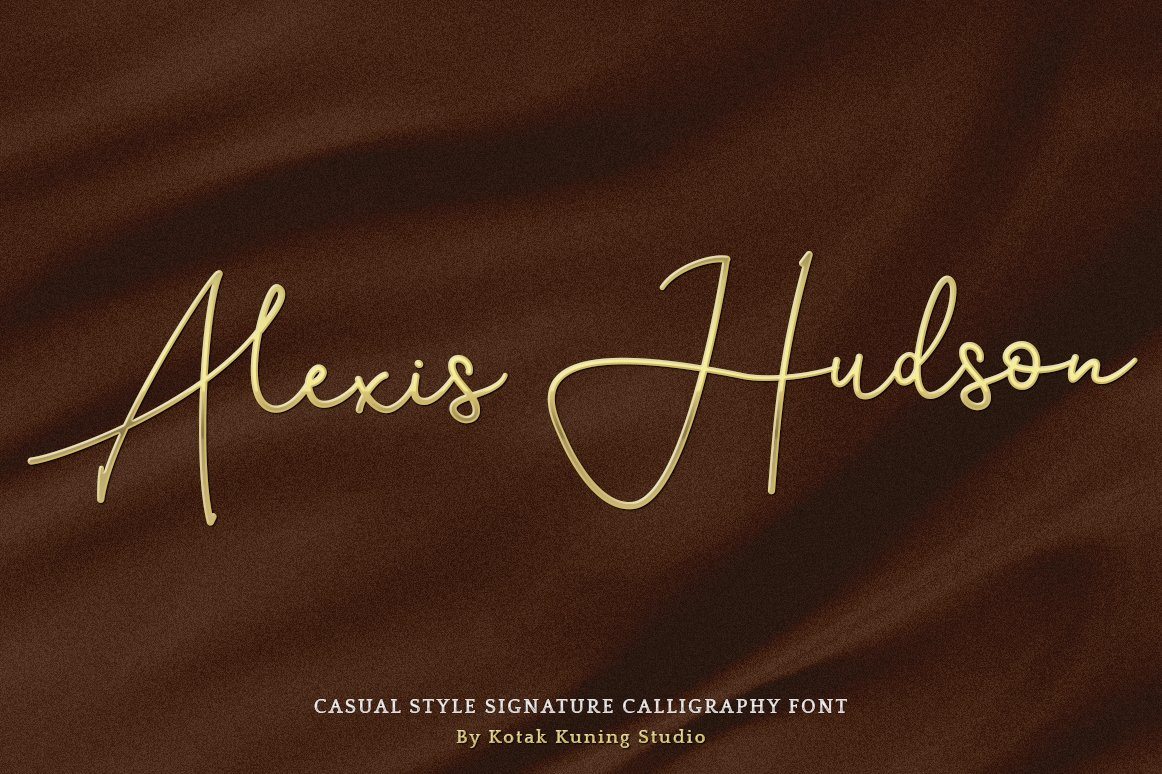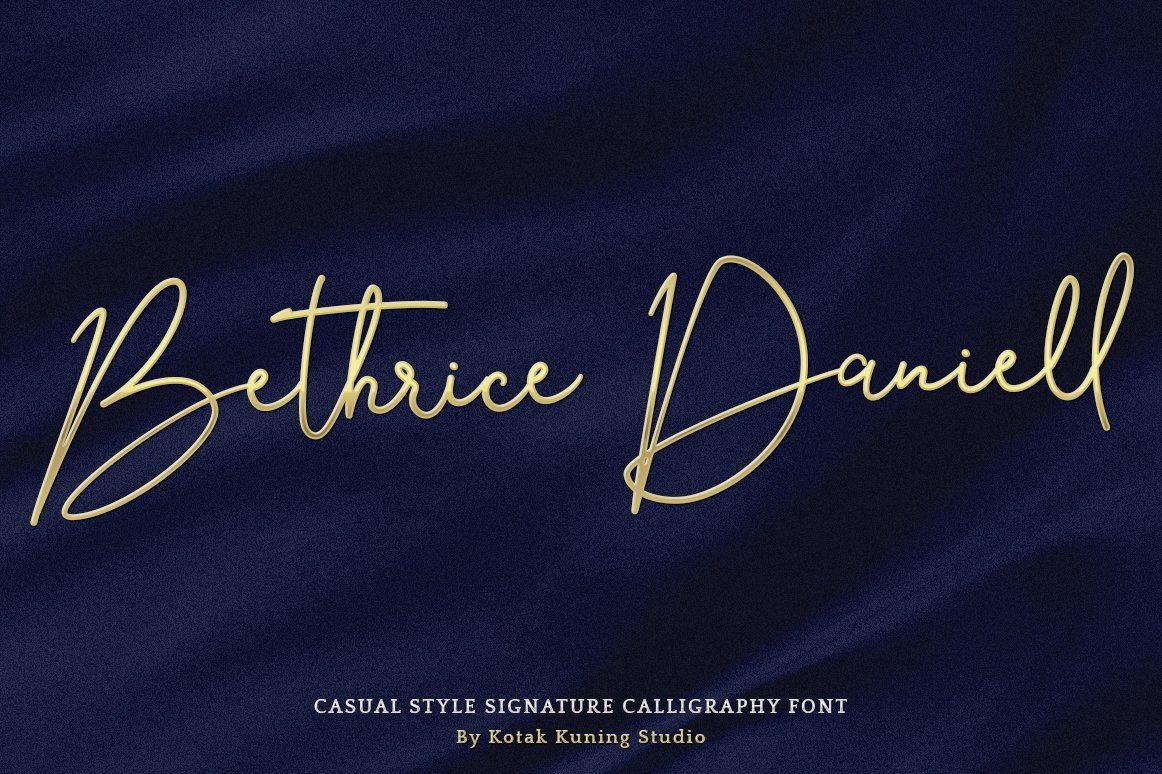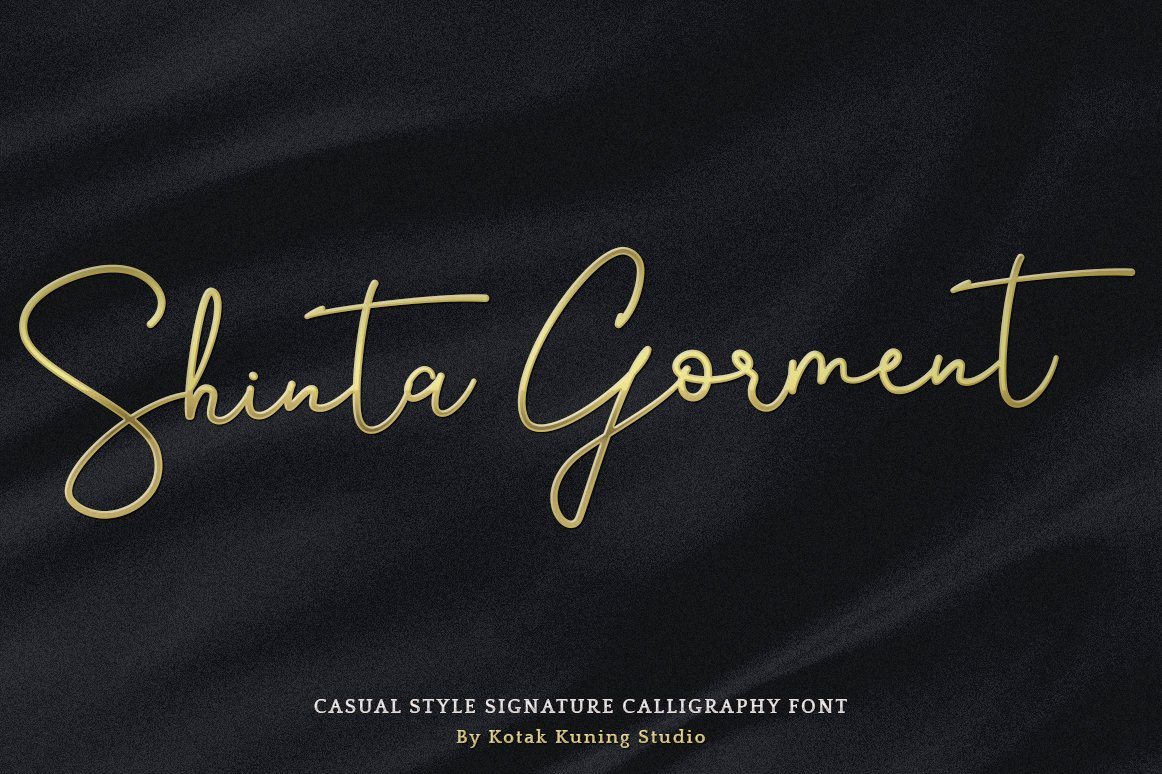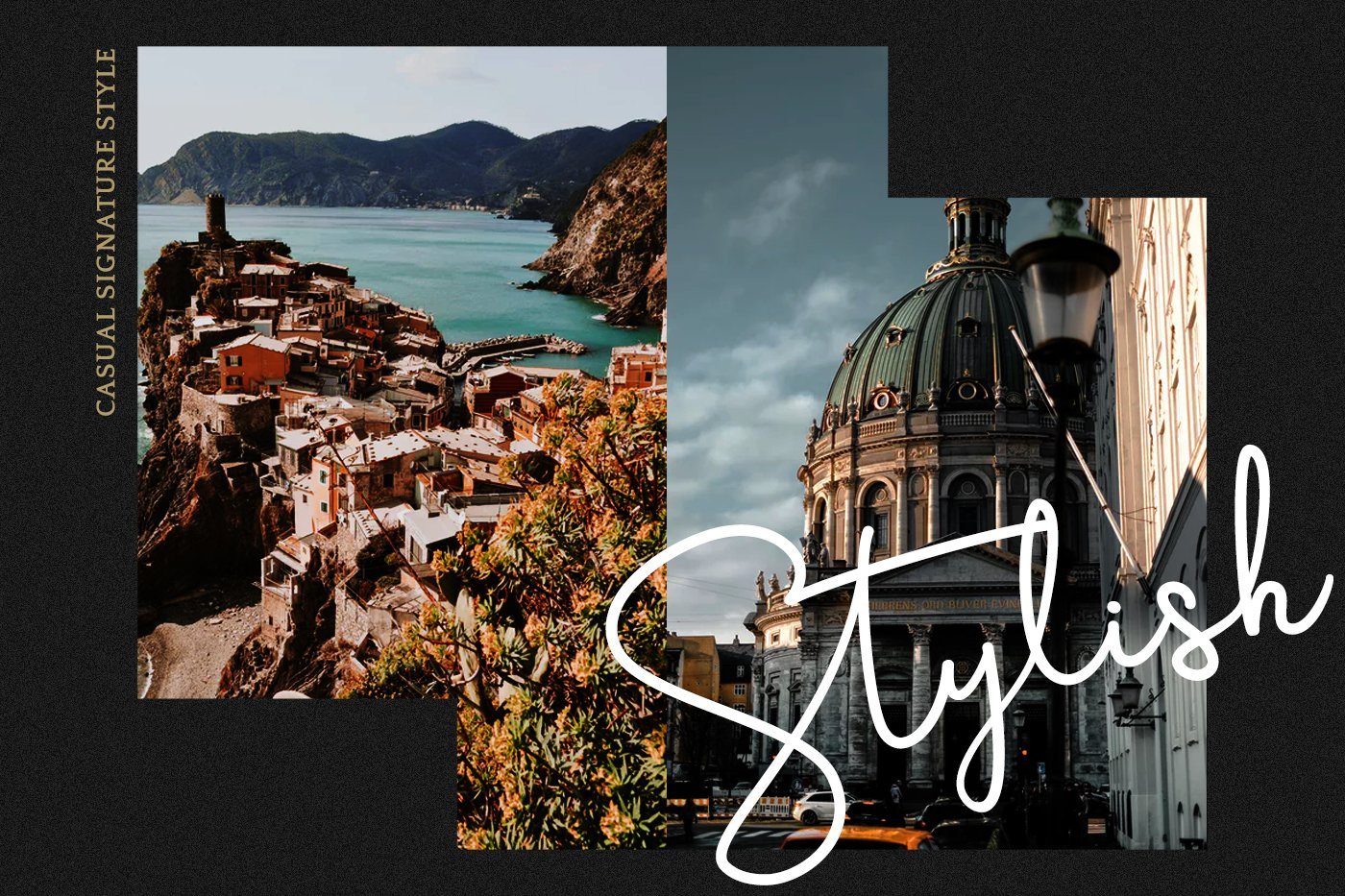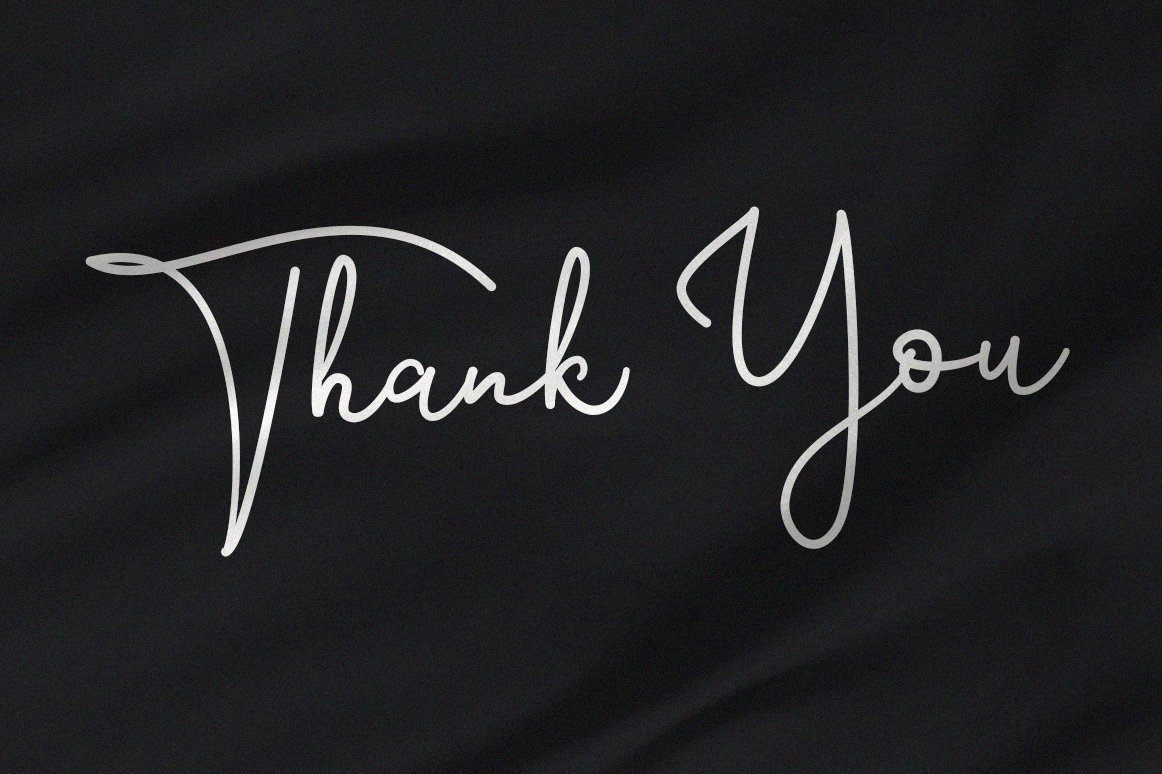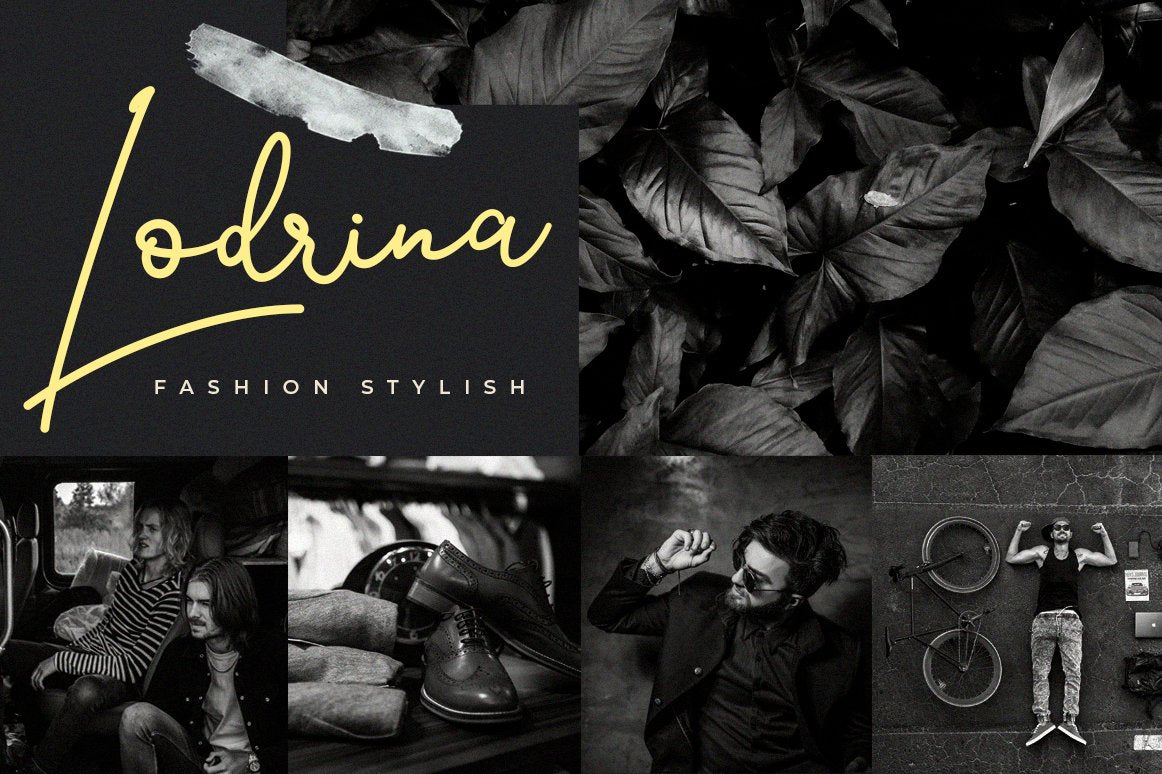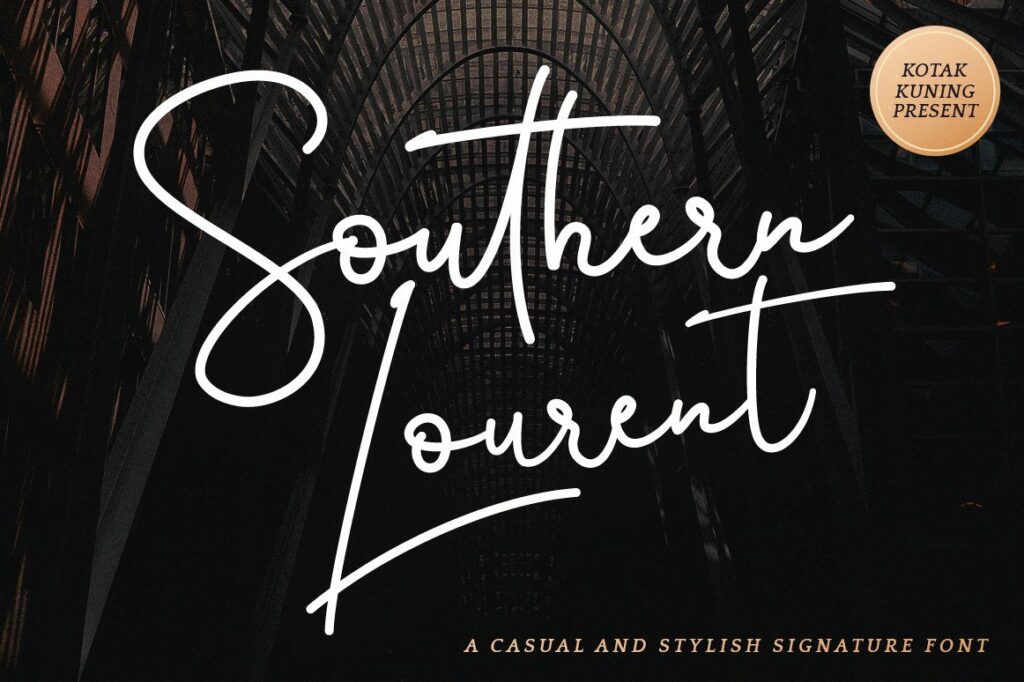
Southern Lourent
Introducing Southern Lourent! A casual and stylish signature font. The font is the great choice for the watermark on photography, signature or signature logo design, quotes, album cover, business card, and many other design project. From business cards to photo watermarks. Southern Lourent is here to elevate your work to the highest level. We keep this font looks elegant, classy, readable, stylish, catchy and easy to use. What you get: SouthernLourent.ttf and SouthernLourent.otf Southern Lourent includes capital and lowercase letters, and Ligatures Numbers + punctuation Foreign language support I highly recommend using a program that supports OpenType features and Glyphs panels such as Adobe Illustrator, Adobe Photoshop CC, Adobe InDesign, or CorelDraw, so you can see and access all Glyph variations. Southern Lourent is encoded with Unicode PUA, which allows full access to all additional characters without having special design software. Mac users can use Font Book, and Windows users can use Character Map to view and copy one of the extra characters to paste into your favorite text editor/application. We hope you enjoy the font. Thank You.